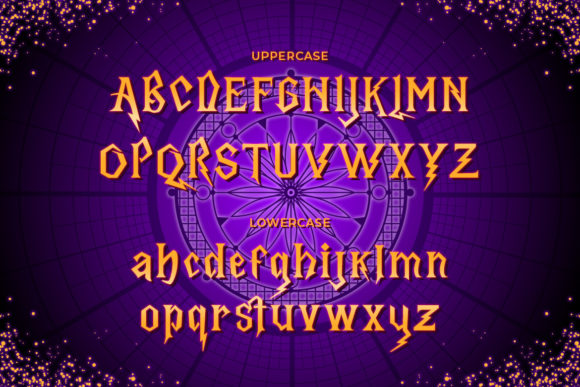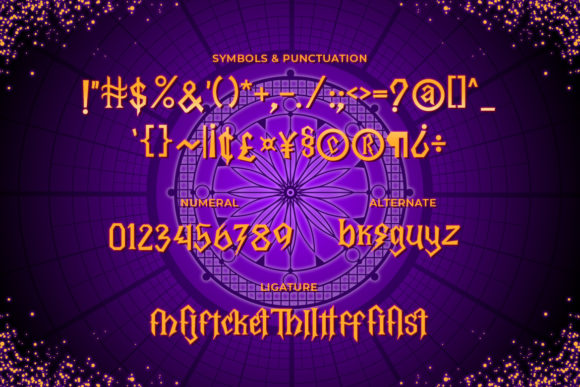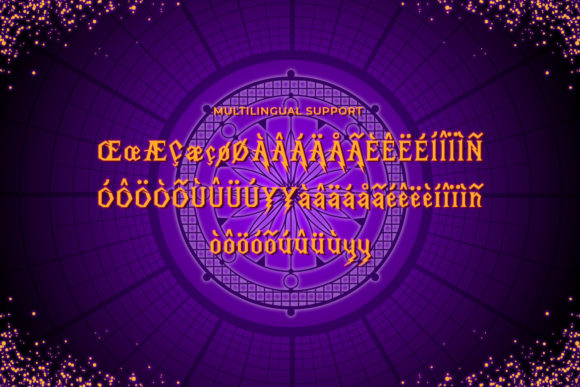
Introduction to Legendary Runes Font
Legendary Runes is a fantasy display font that will immediately take you into a fairytale land.
Add this cartoon-like font to a wide range of creations related to children adventure, games or parties .
Key Features of Legendary Runes Font